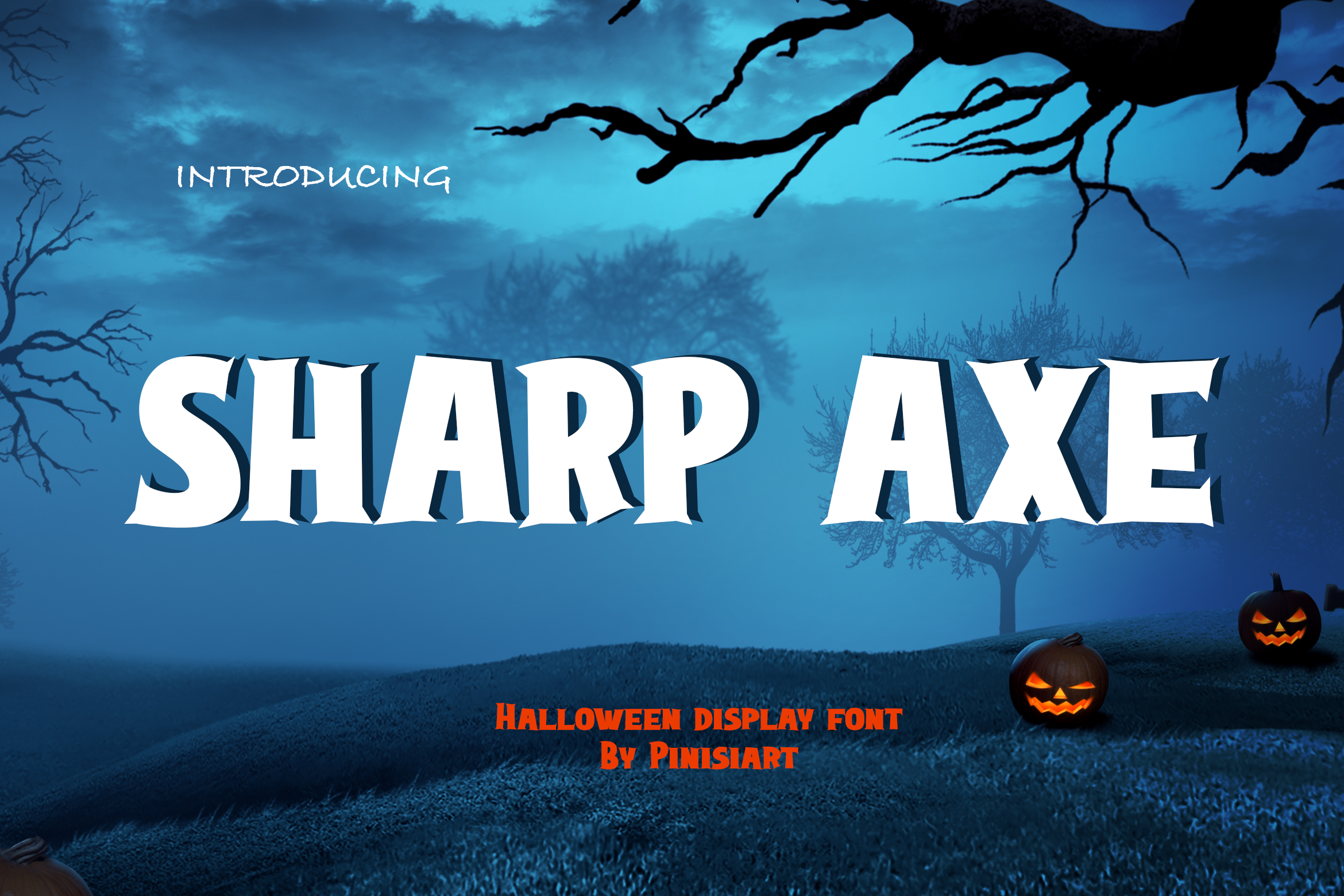
Sharp Axe - Halloween Font
Owl hooting, freezing wind blowing, the wolves howling….and you hear a scratching sound coming. It’s all terror and horror in Sharp Axe.
Suit perfectly for mystery gaming market audiences, Halloween poster, movie title, fun restaurant/ cafe menu, magazine, youtube covers, youtube thumbnails, social media page covers and so on…